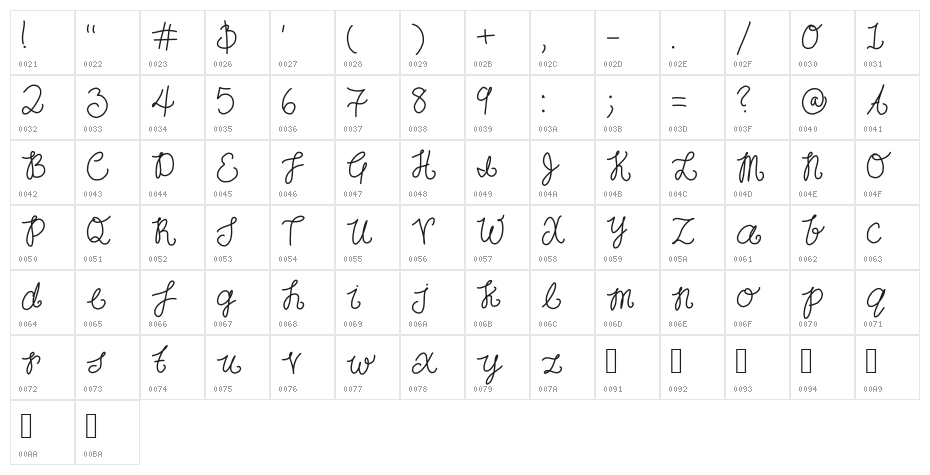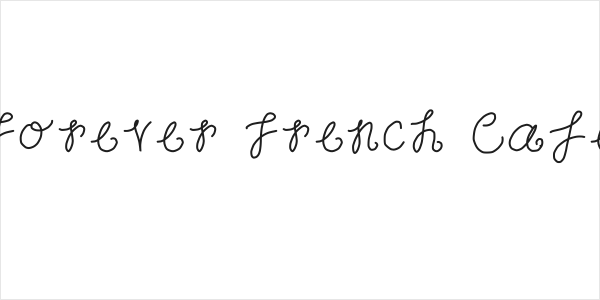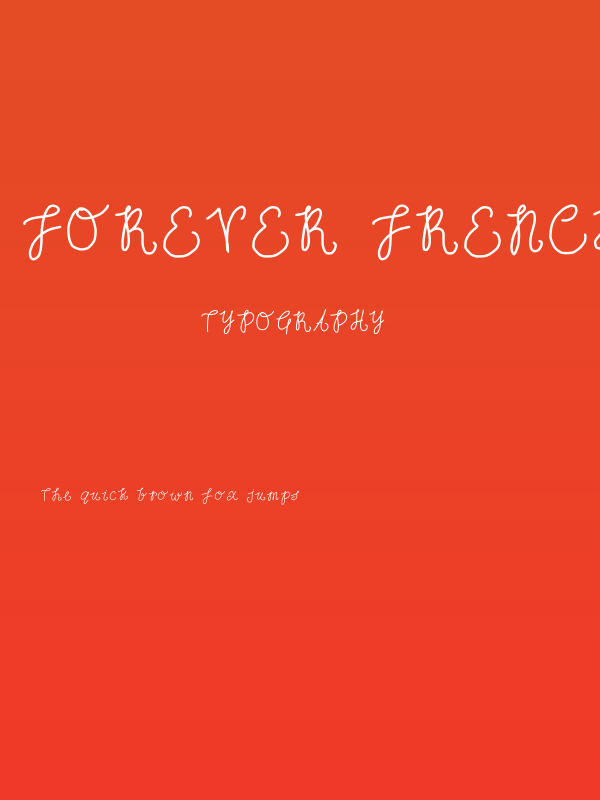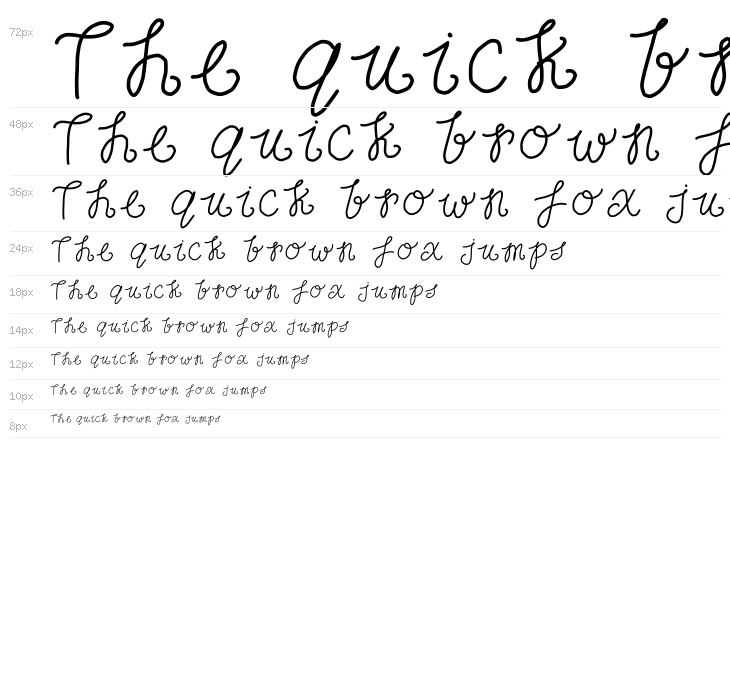
Forever French Cafe Font
Forever French Cafe Description
This font exudes a charming, handwritten style reminiscent of elegant cursive writing. The characters are fluid and connected, with a playful yet sophisticated flair. The uppercase letters maintain a consistent height, while the lowercase letters exhibit a slight slant, adding to the font's dynamic appearance. The numerals are clear and legible, maintaining the same cursive style. Special characters are seamlessly integrated, ensuring a cohesive look across all glyphs. This font is perfect for projects that require a personal touch, such as invitations, greeting cards, or branding for boutique businesses.